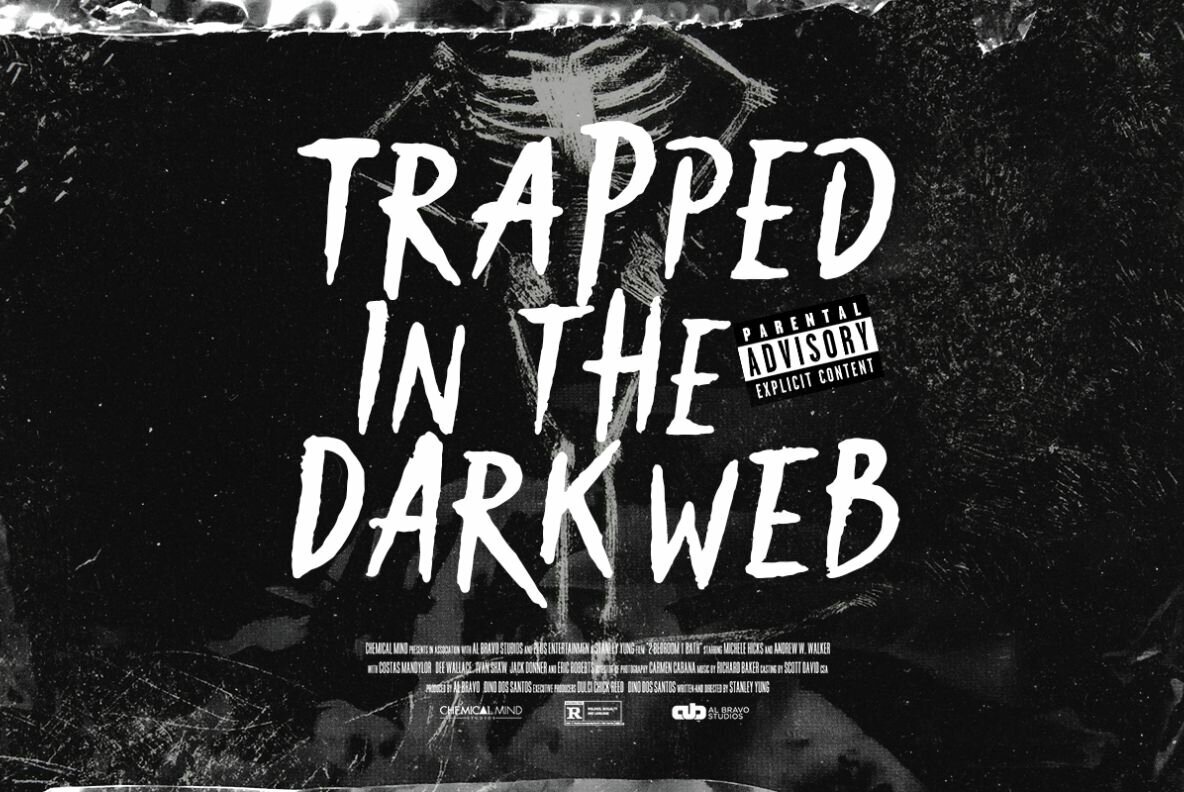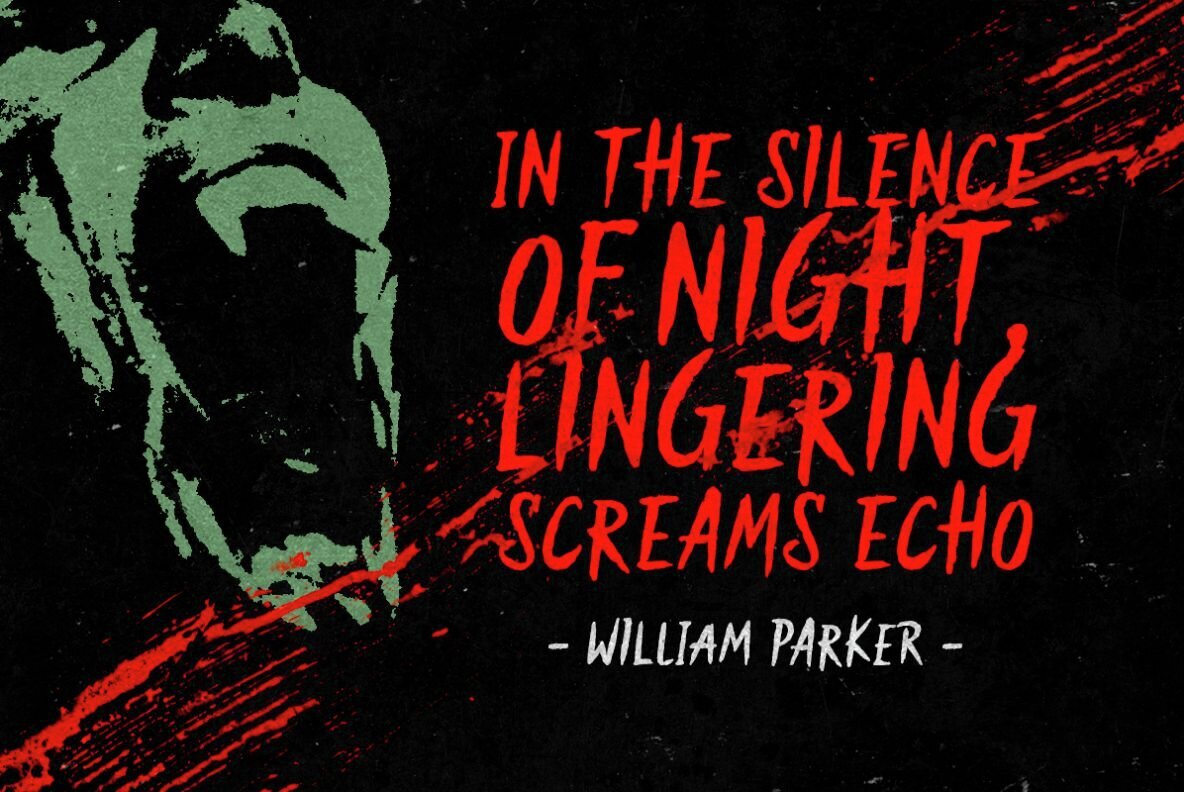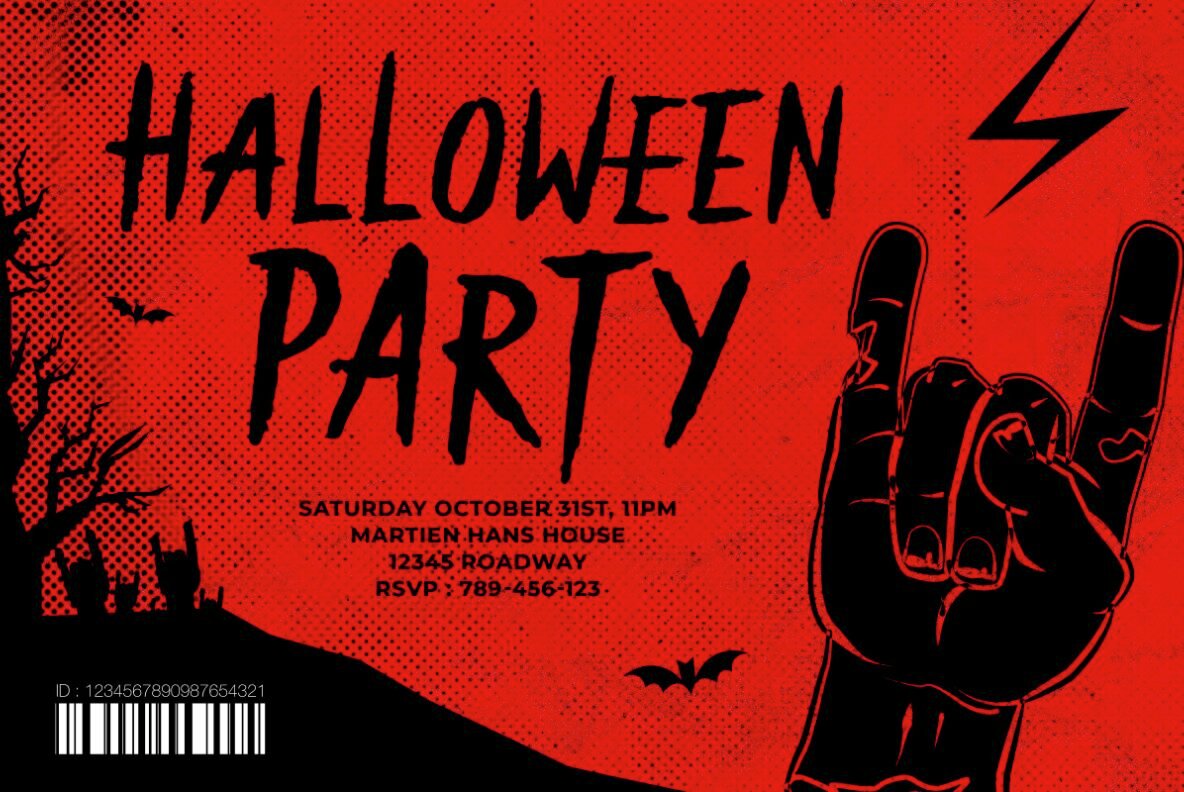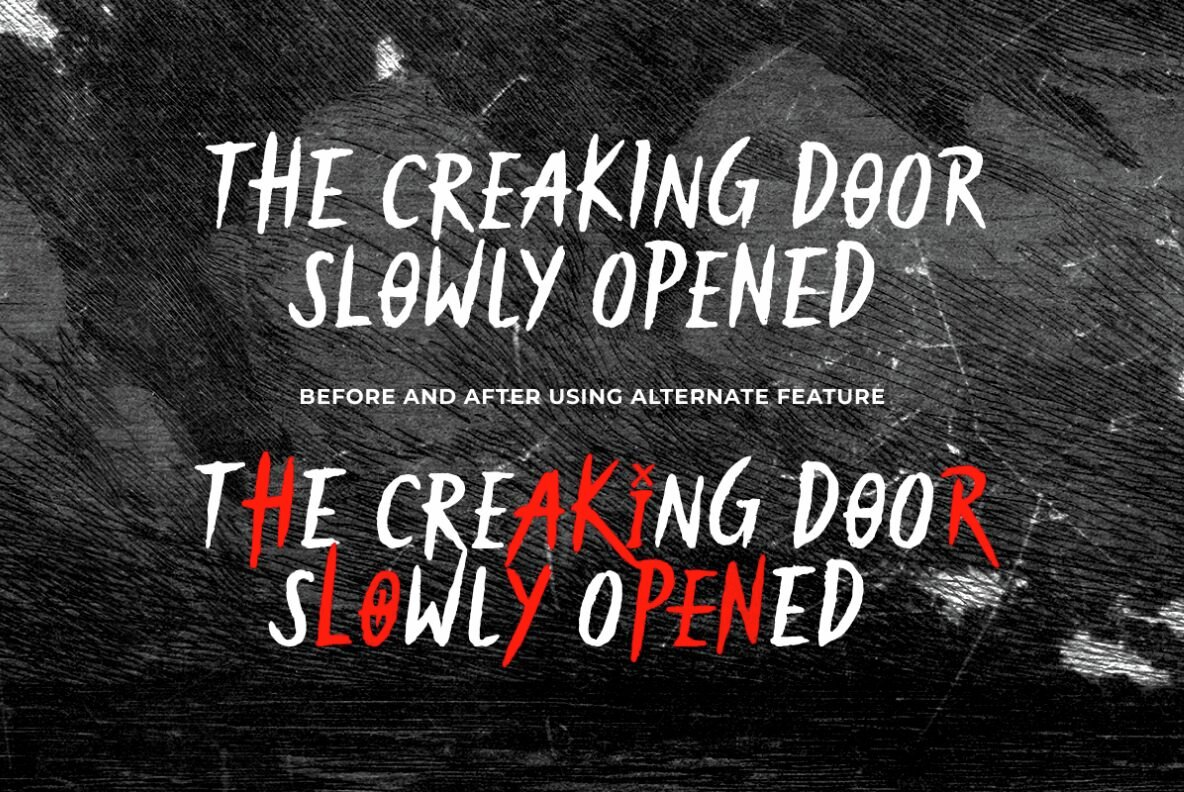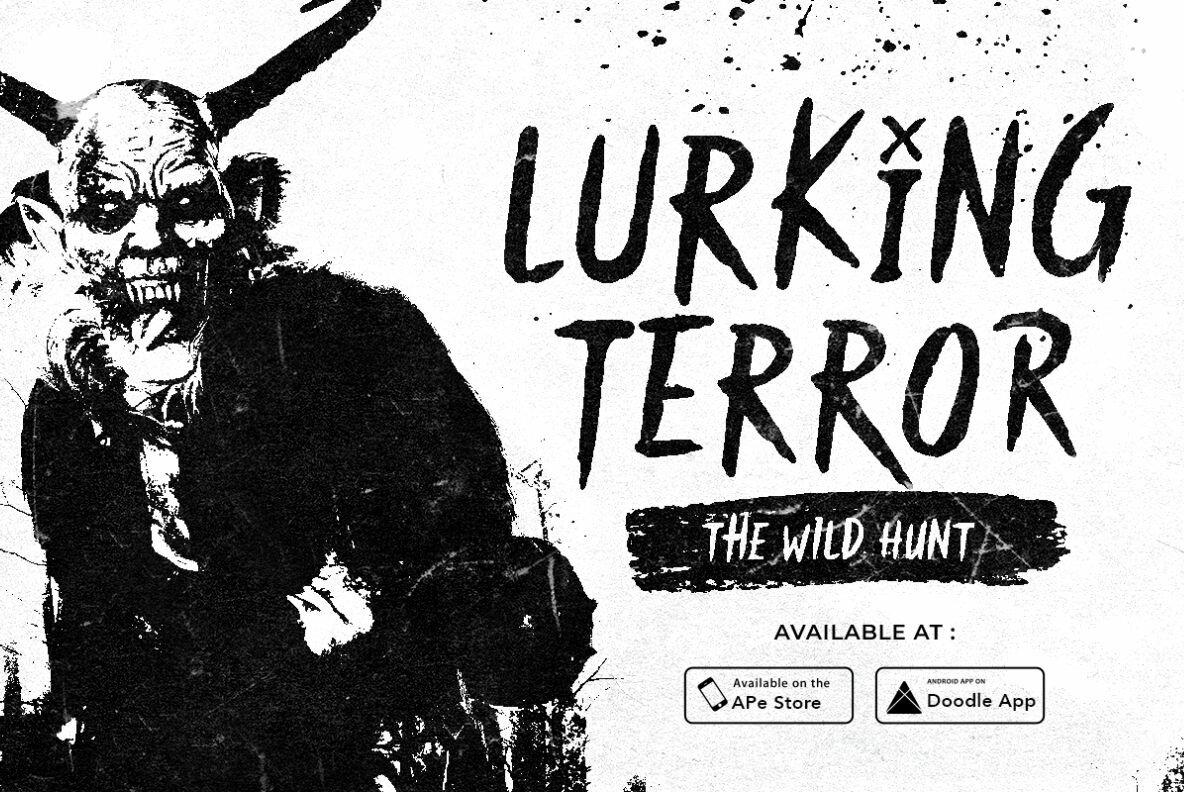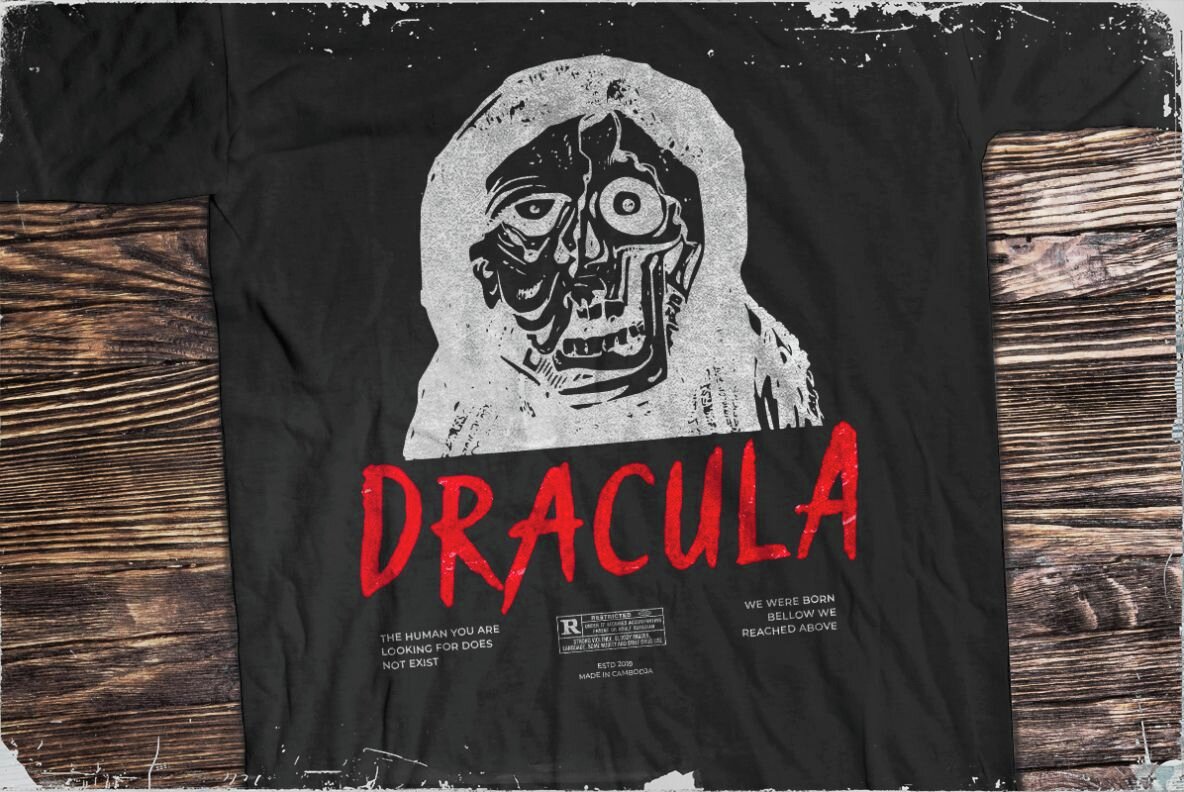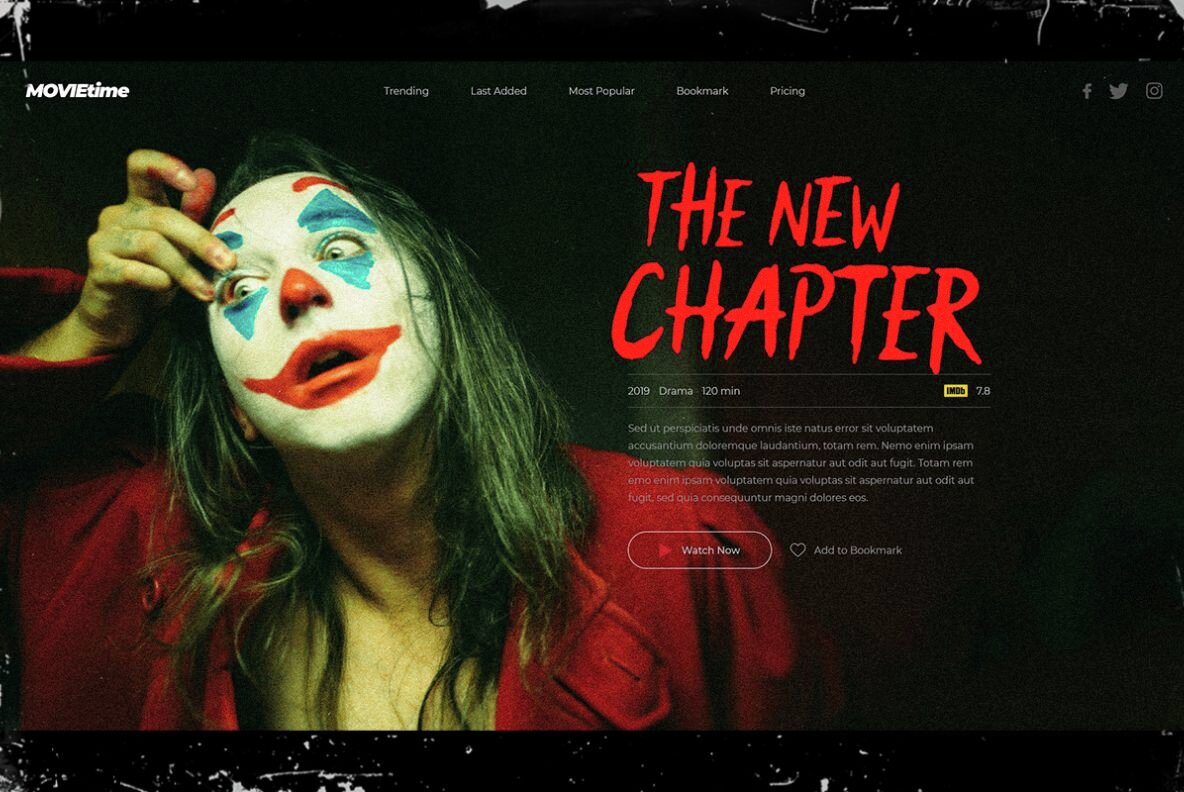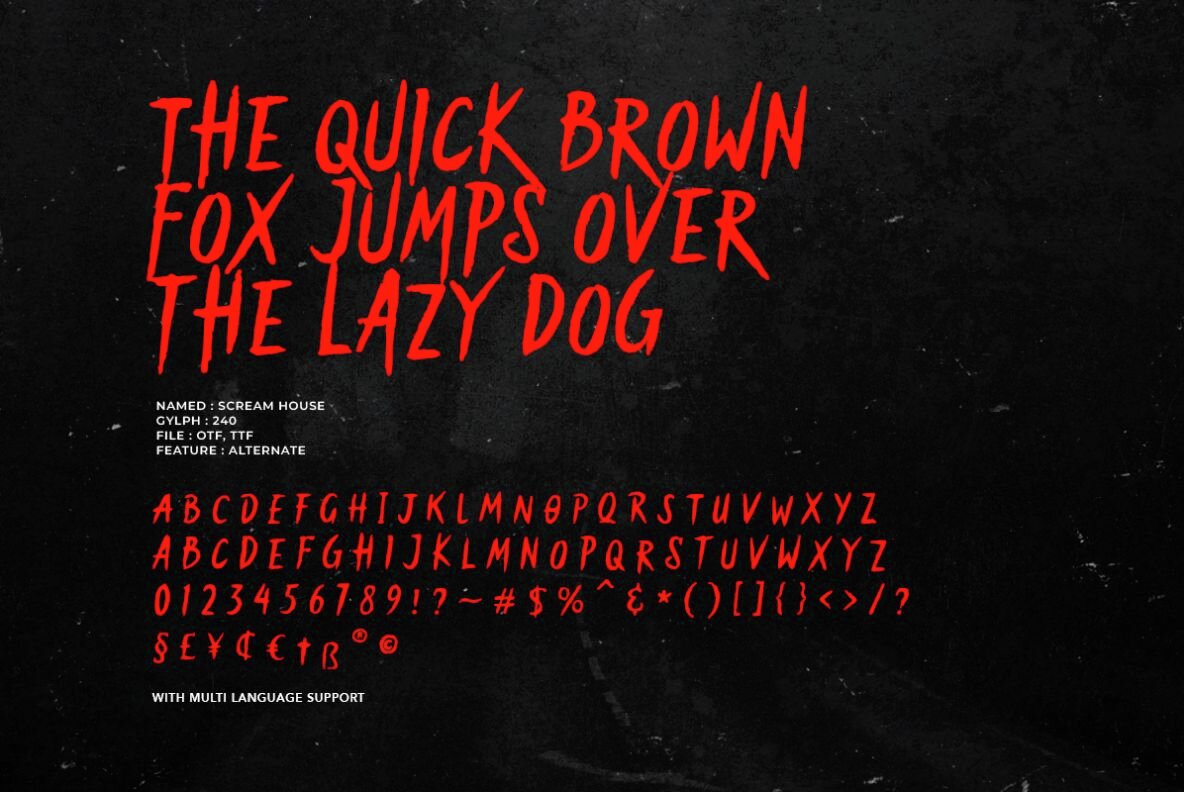
Scream House Font
Scream House Regular
Scream House is a horror-inspired handwritten font, perfect for projects that require an eerie and unsettling atmosphere. Its rough edges add an authentic, chilling touch, ideal for creating a spine-tingling aesthetic. By mixing uppercase and lowercase letters along with various alternates, you can achieve a striking visual effect tailored to your design needs. Ideal uses include movie posters, Halloween-themed designs, book covers, and captivating quotes where a haunting feel is essential.
Beyond horror-themed applications, this serif font can be adapted to a range of fancy and fun design projects. Its versatility makes it suitable for various occasions that benefit from a distinctive flair. Additionally, Scream House supports multiple languages, allowing international cohesion in your creative work. Whether you're crafting something spooky or simply seeking a unique serif for a lively composition, this font offers flexibility and style.